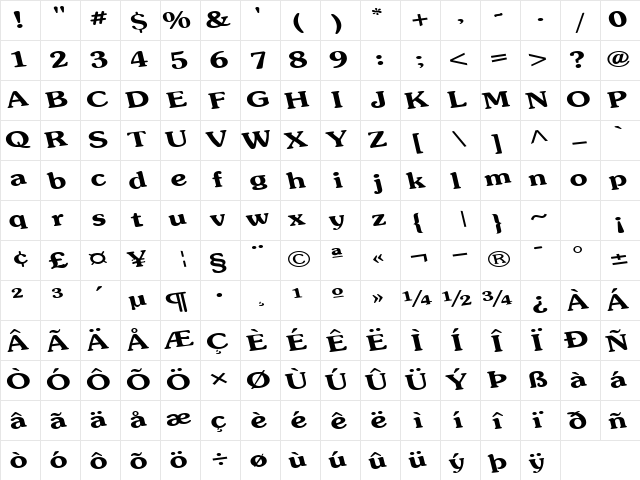
Royal Regular Font Preview
Royal Regular
Royal Regular Font Details
Design Context for Royal Typeface
Royal is a composed and adaptable typeface that performs quietly and consistently across a wide range of design contexts.
Pro Tip: Pair Royal with a font of contrasting weight or personality to build a more expressive typographic hierarchy.